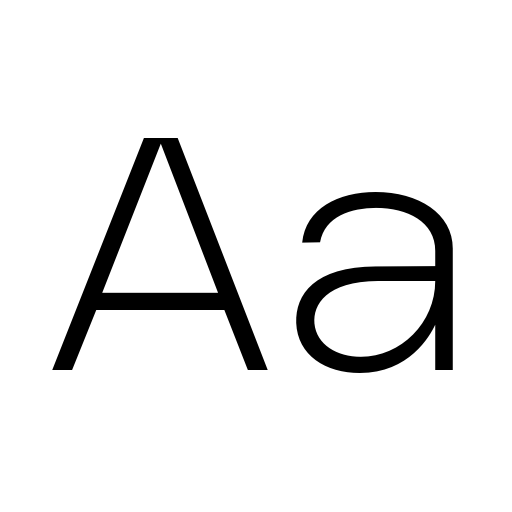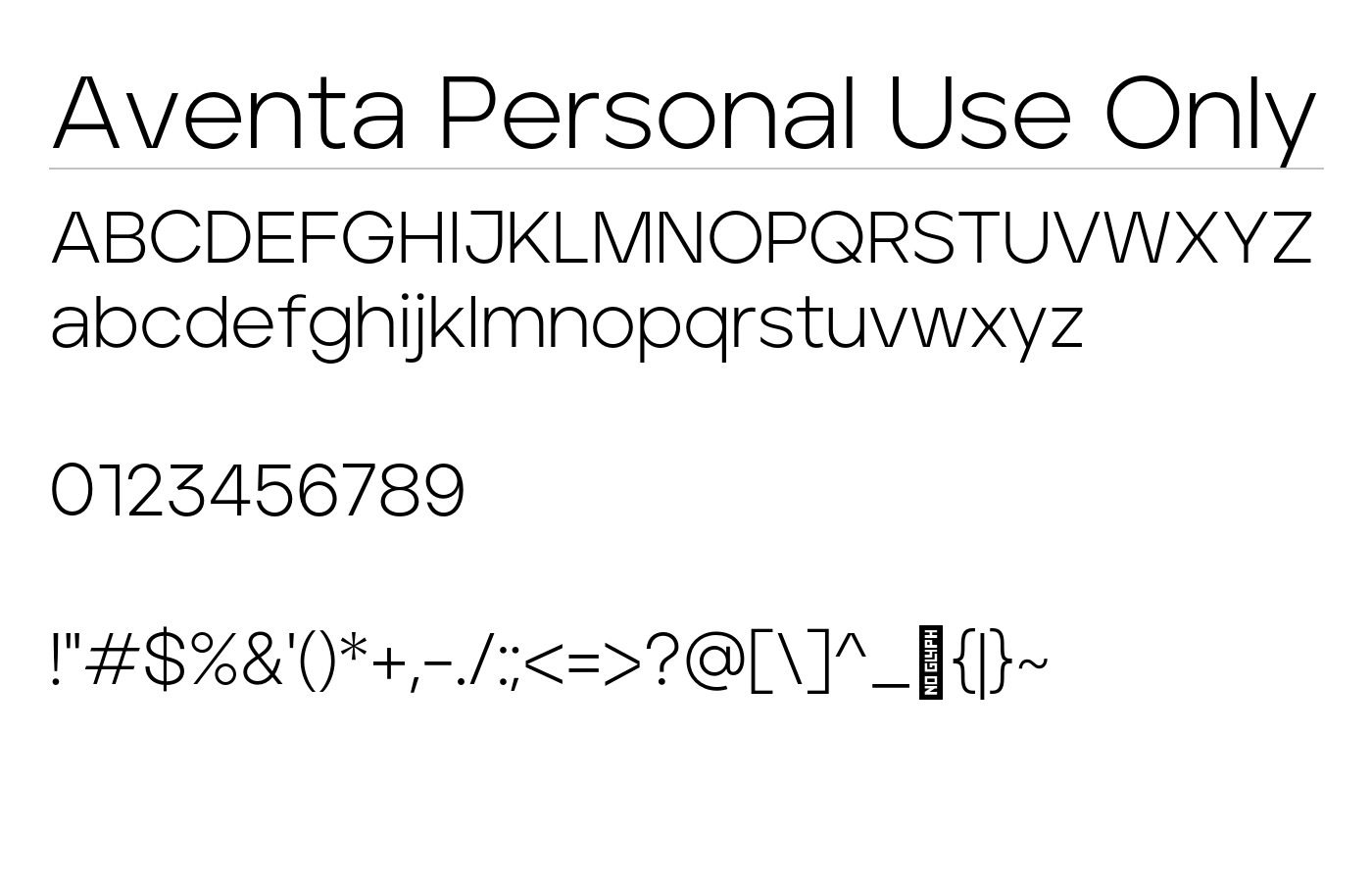
Aventa Personal Use Only is a clean, modern sans serif font with a light weight and a slightly condensed width, giving it a sleek and elegant appearance. Its smooth, consistent strokes and simple geometric shapes make it highly legible and versatile, ideal for use in branding, editorial design, and digital interfaces where a contemporary and refined look is desired. This font works especially well for headlines and logos due to its crisp, minimalist style that conveys professionalism and clarity.
Aventa Personal Use Only Font
About Aventa Personal Use Only Font
| Font family | Aventa Personal Use Only Font |
| Designer | Tom Anders Watkins & Ellen Luff |